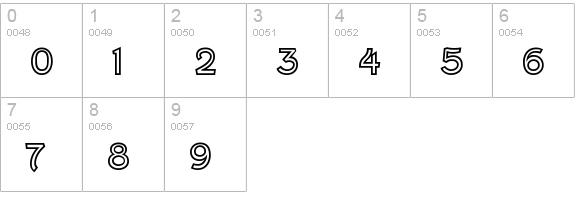
Fenwick Outline Free is a modern and stylish font that adds a touch of sophistication to any design project. With its clean lines and sleek appearance, this font is perfect for creating eye-catching headings, titles, and logos. The outline style gives it a contemporary and versatile look that can be used in a variety of design applications. What makes Fenwick Outline Free even more appealing is that it is available for free download at FontsMarket.com. You can easily access this font and incorporate it into your projects without any cost. Whether you're a designer, a blogger, or a business owner looking to enhance your brand identity, Fenwick Outline Free is a fantastic choice that won't break the bank. Don't miss out on the opportunity to elevate your designs with this elegant and stylish font that is not only visually striking but also freely available for download. Download Fenwick Outline Free today and take your design projects to the next level.